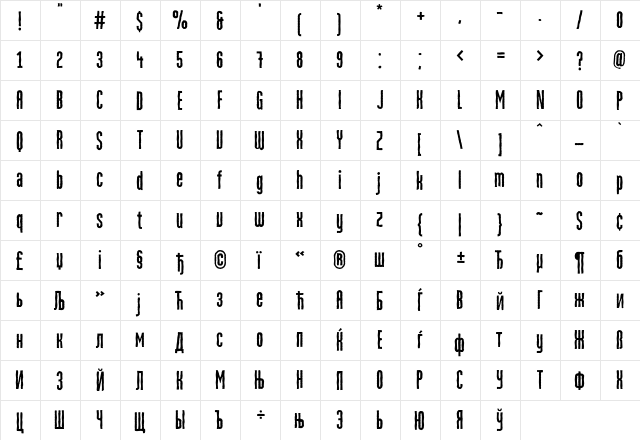
MartenCyr Medium
Design Context for MartenCyr Typeface
MartenCyr takes a measured approach to typography — its balanced proportions and neutral character make it a reliable workhorse for both digital and print work.